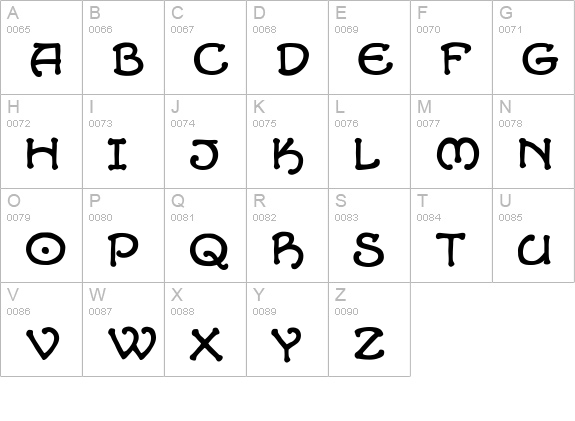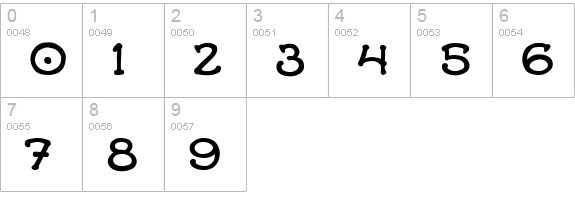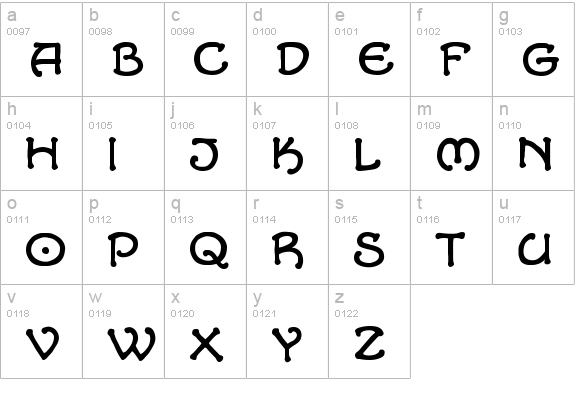
CCAlchemite-Regular Font Details
CCAlchemite-Regular is the standard, neutral variant in the CCAlchemite typeface family \xE2\x80\x94 well suited to general body text, paragraphs, and standard typographic work.
CCAlchemite-Regular is a unique and versatile font that combines classic elegance with a modern twist. Its sleek lines and sophisticated curves make it the perfect choice for a wide range of design projects, from branding to editorial design. This font exudes a sense of creativity and innovation, making it ideal for those looking to make a statement with their typography. What sets CCAlchemite-Regular apart is its seamless blend of tradition and innovation, making it a truly timeless font that will never go out of style. Whether you're designing a logo, a poster, or a website, this font will add a touch of sophistication and flair to your project. The best part? CCAlchemite-Regular is completely free to download at FontsMarket.com. So why wait? Add this stunning font to your collection today and take your designs to the next level.